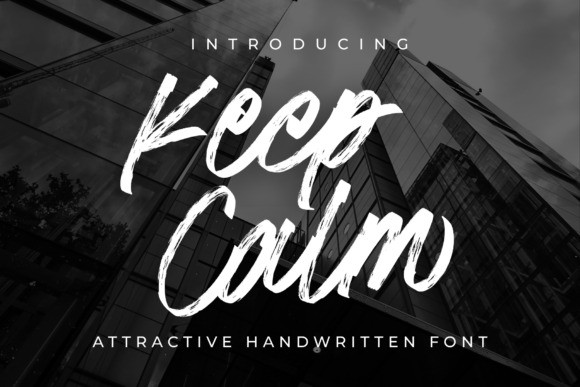
Keep Calm Font
Keep Calm Font – a natural, handwritten brush font that infuses casual sophistication into your designs. Its effortlessly smooth brush strokes and organic flow emulate the charm of relaxed handwriting, yet ensure pristine legibility. Be it quotes, logos, packaging visuals, or social media graphics, Keep Calm is poised to instill your creative undertakings with an inviting warmth and genuine authenticity. This unique font is a fusion of relaxation and clarity, capturing the heart of casual elegance in every design aspect it graces.